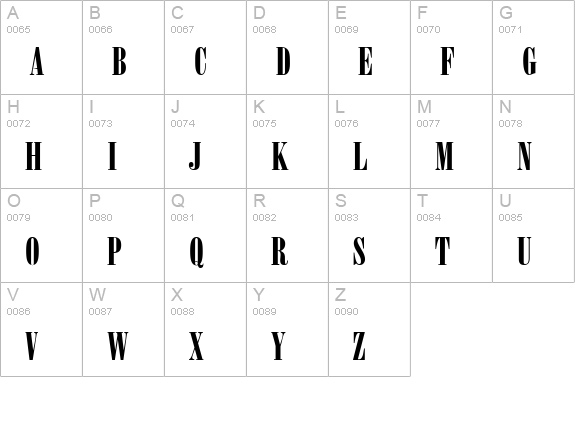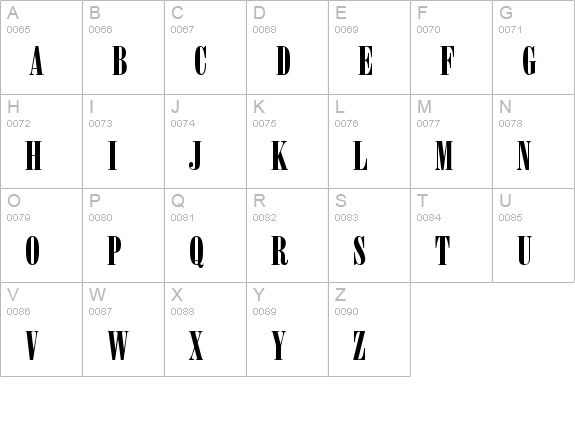
BodoniPosterCompressed-Bold Font Details
BodoniPosterCompressed-Bold is a strong, high-contrast variant in the BodoniPosterCompressed typeface family \xE2\x80\x94 well suited to headlines, attention-grabbing titles, and strong calls-to-action.
BodoniPosterCompressed-Bold is a striking and elegant font that exudes sophistication and modernity. Its bold and compressed design makes it perfect for creating eye-catching headlines and titles that demand attention. This font is ideal for projects that require a touch of class and refinement. The best part? BodoniPosterCompressed-Bold is available for free download at FontsMarket.com. You can easily access this stunning font and enhance your designs with its timeless appeal. Don't miss out on the opportunity to elevate your projects with the beauty and versatility of BodoniPosterCompressed-Bold. Download it today and make a statement with your typography.